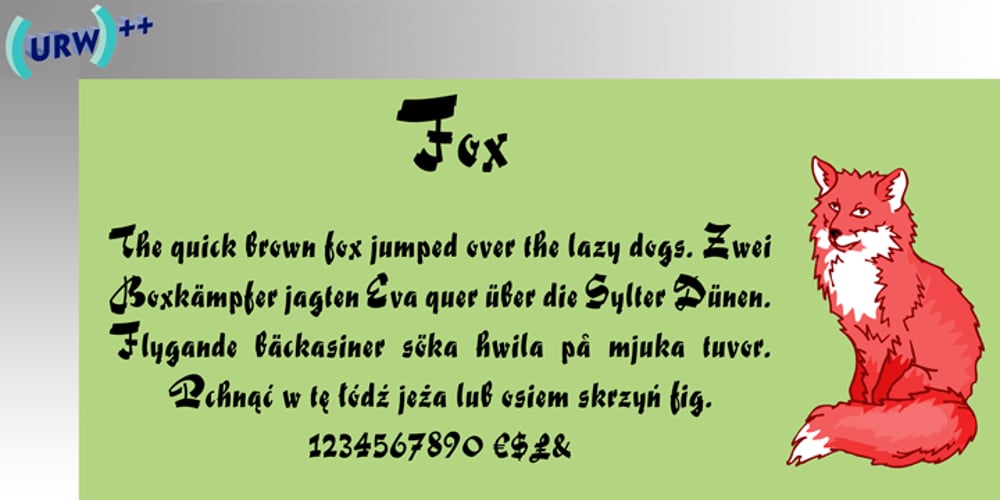
Fox font
Fox Font Family was designed by Ralph M. Unger and published by profonts. Fox contains 1 styles and family package options. Fox was originally designed by W. Rebhuhn for the former German Genzsch & Heyse foundry. In reminiscence of the good old times, Ralph M. Unger redrew and digitally remastered this font in 2007. His work is based on artwork taken from old font catalogues. Fox is a very lively script, quite typical for the 50s